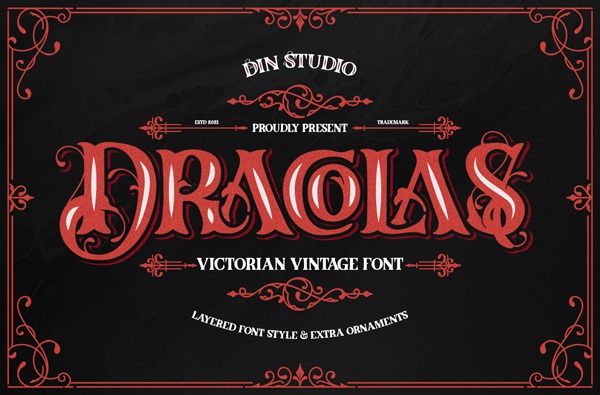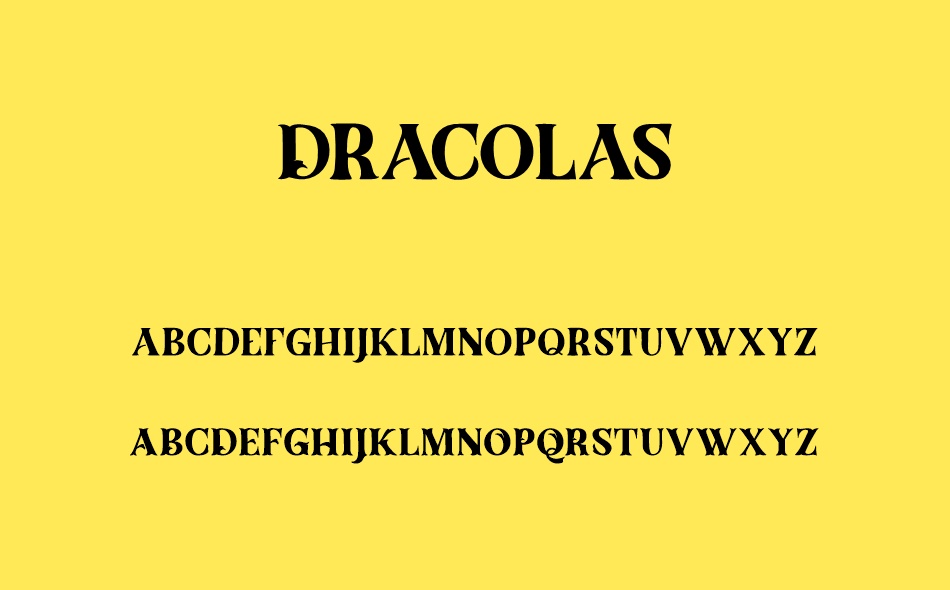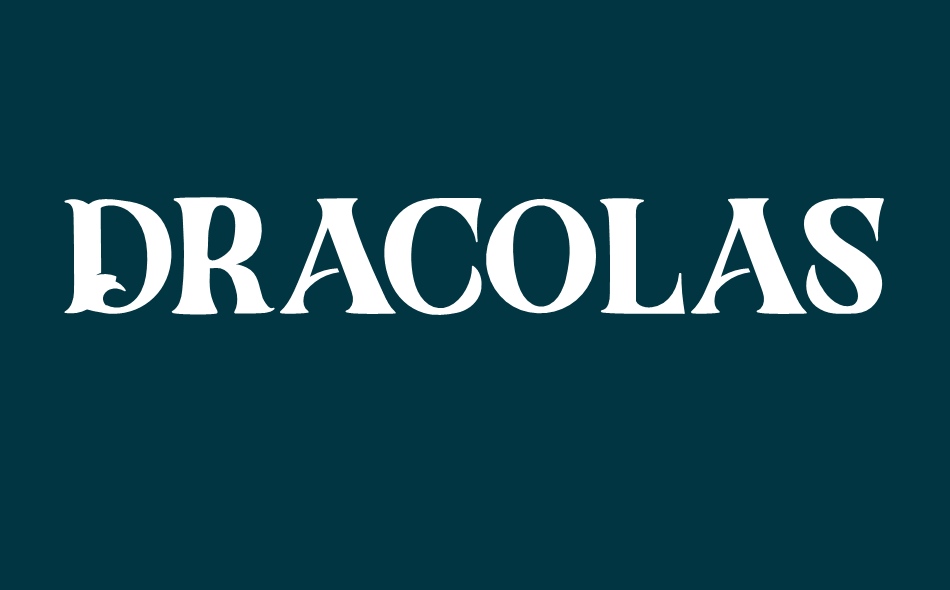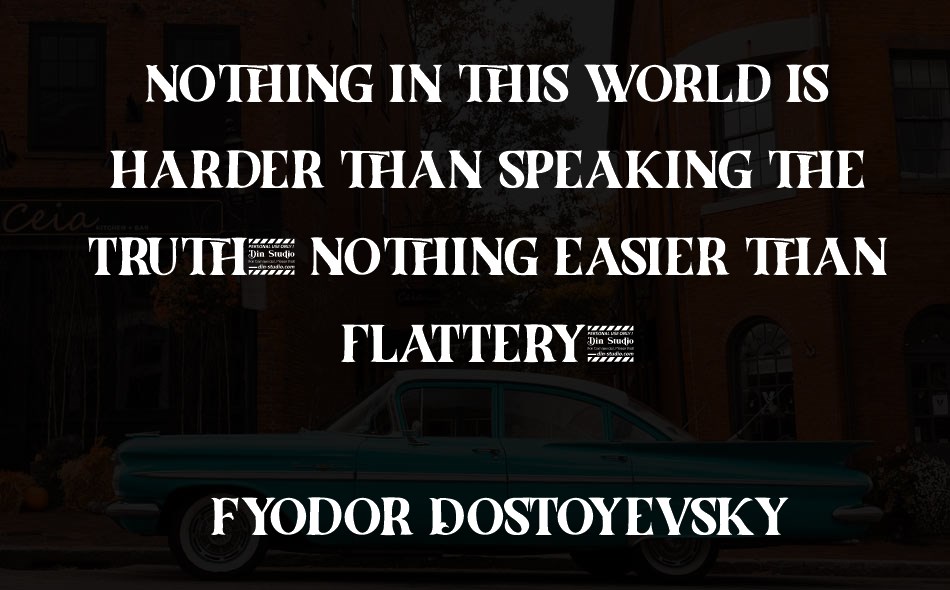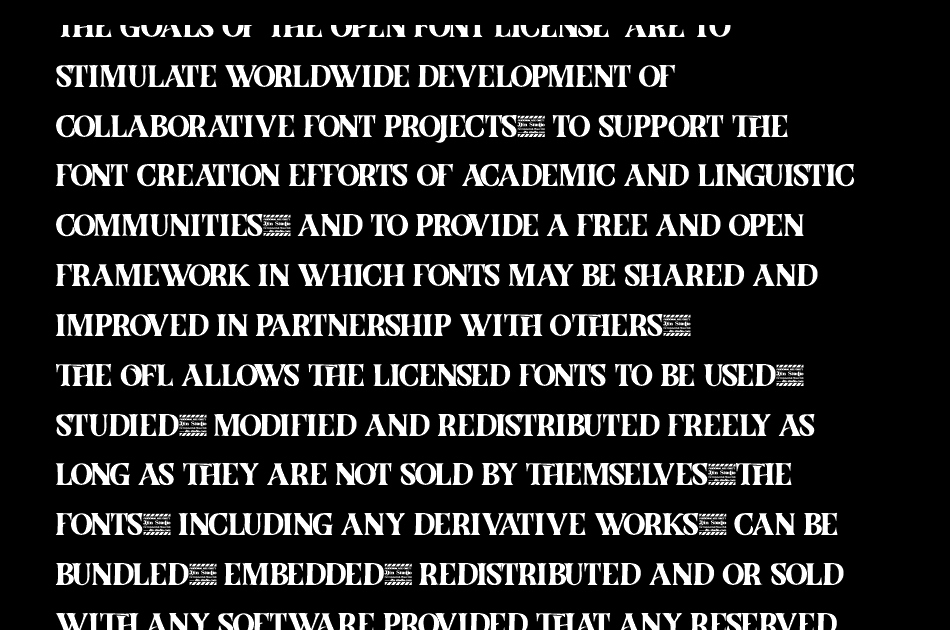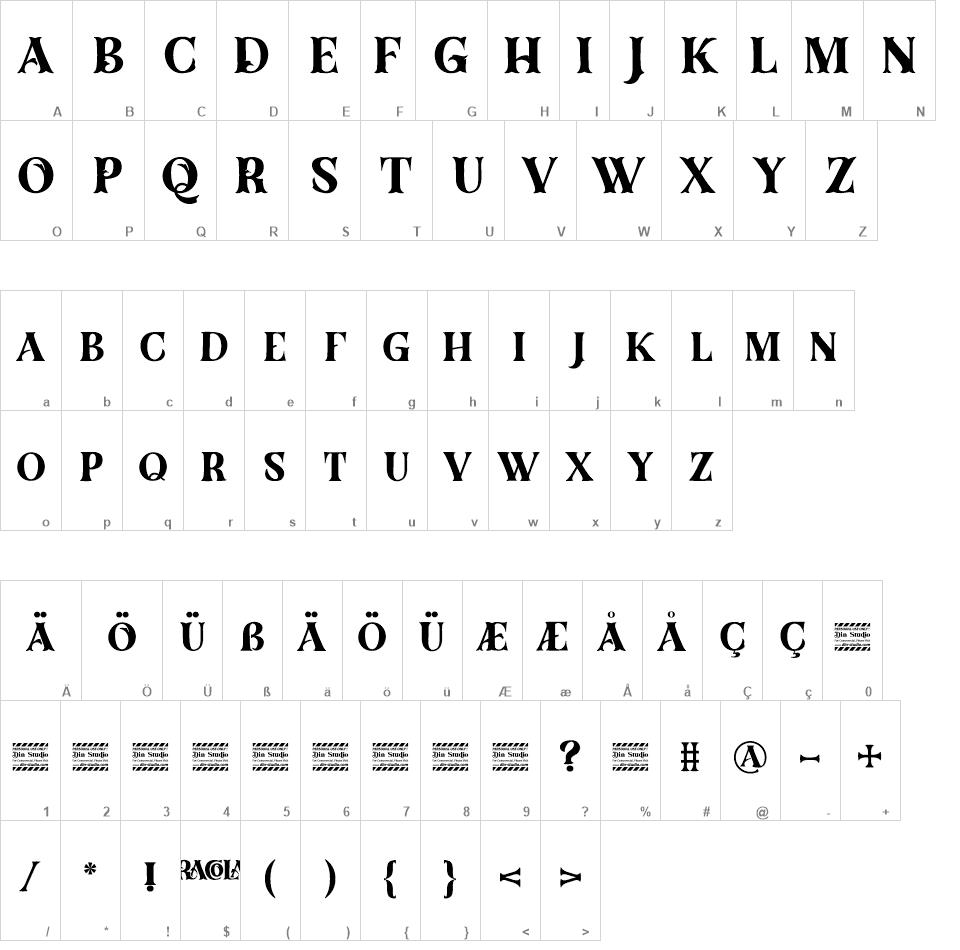
Dracolas font
Dracolas A Victorian Vintage Font is a typeface that made all characters in uppercase. It is an excellent choice to add the right amount of retro touch. This typeface with artistic style looks very interesting for loads of different projects and promotions. A great all-in-one package for your logo, book cover, poster, t-shirt, branding, and advertisement needs.
Dracolas-A Vintage Font
Dracolas is a typeface that is made all characters in uppercase. An excellent choice to add the right amount
of retro touch. This typeface with artistic style looks very interesting for loads of different projects and
promotions. A great all-in-one package for your logo, book cover, poster, t-shirt, branding, and advertisement
needs.
Features:
• Ligatures
• Swashes
• Alternates
• Bonus Ornament